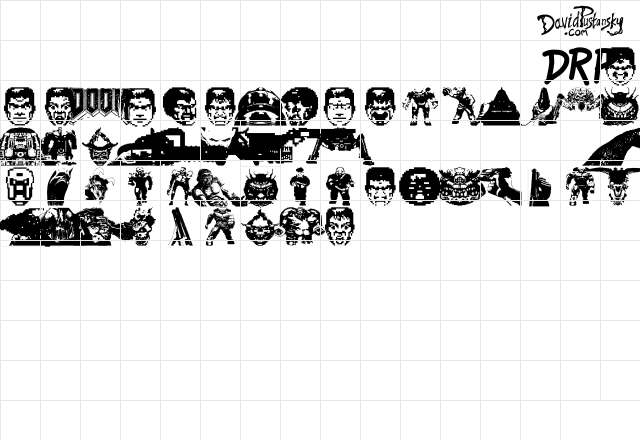
Doom And Gloom Regular
Design Context for Doom And Gloom
Doom And Gloom is a composed and adaptable typeface that performs quietly and consistently across a wide range of design contexts.